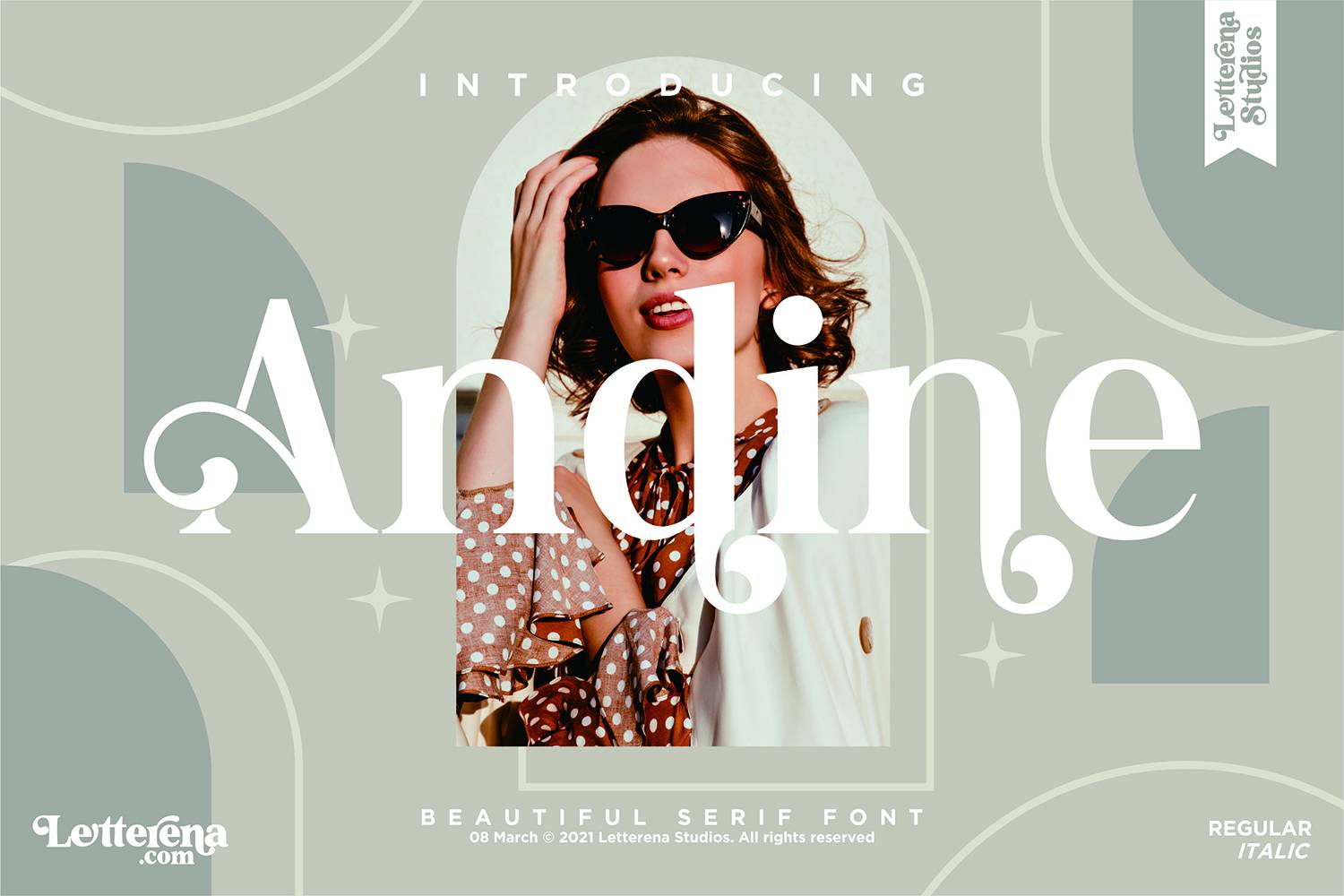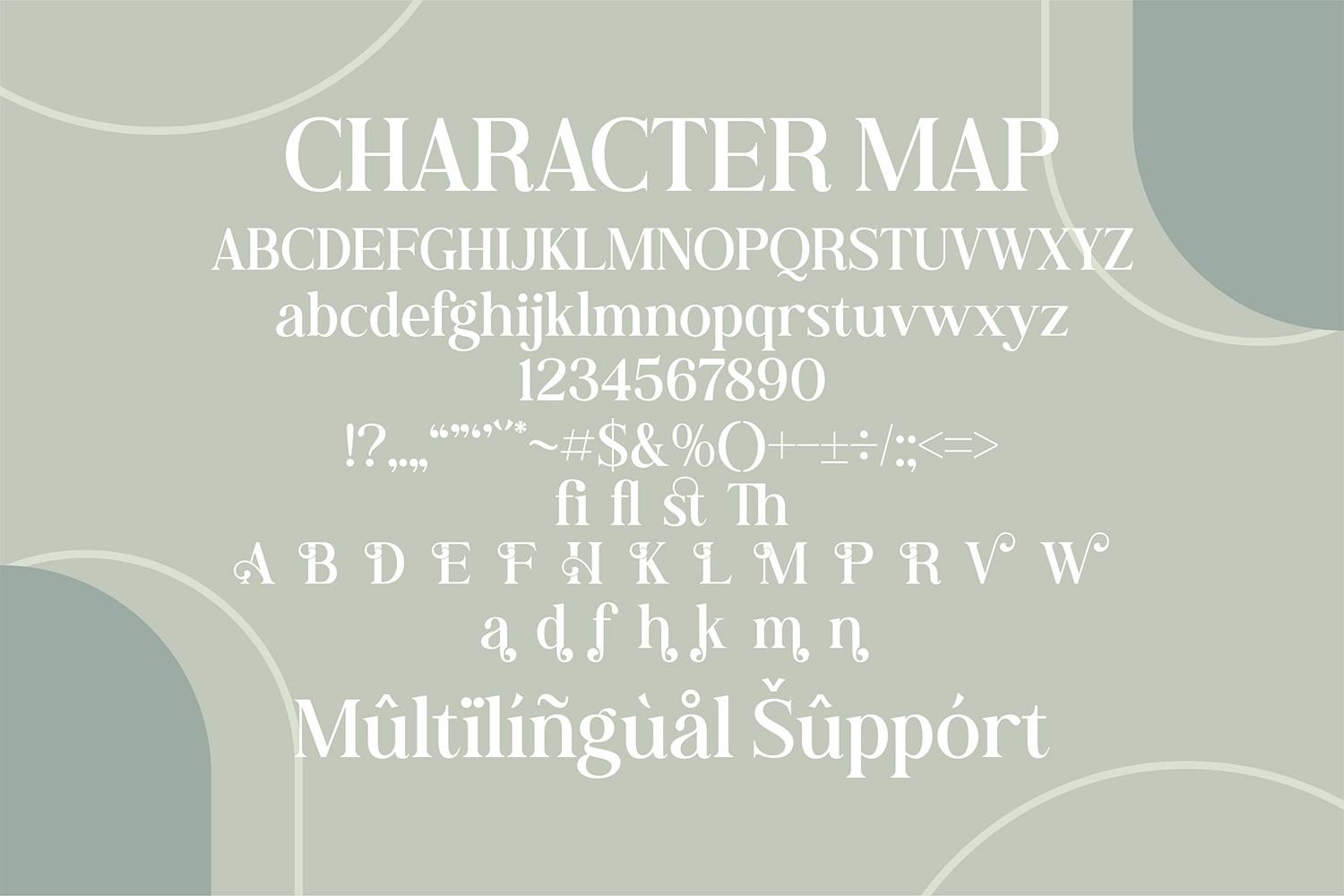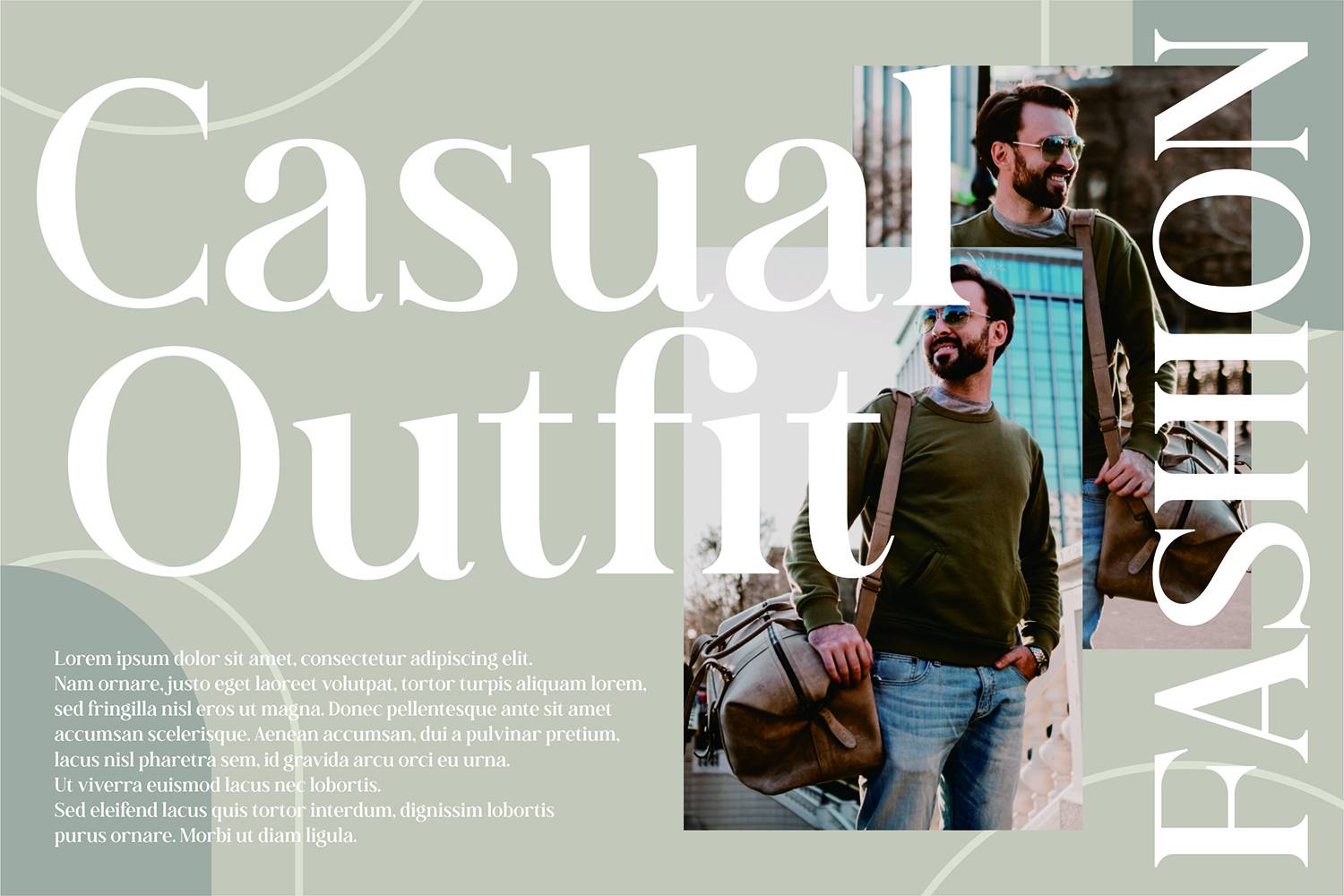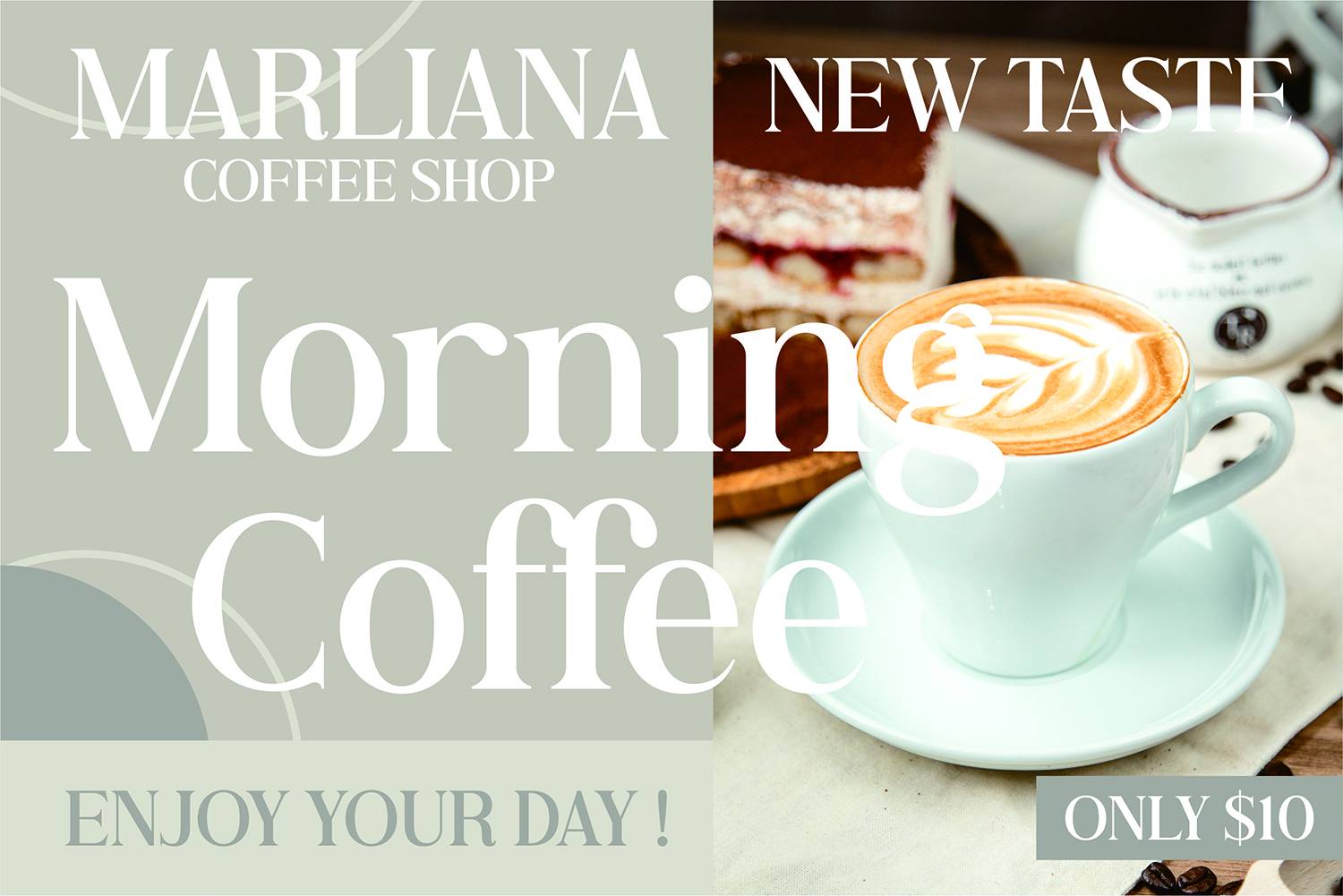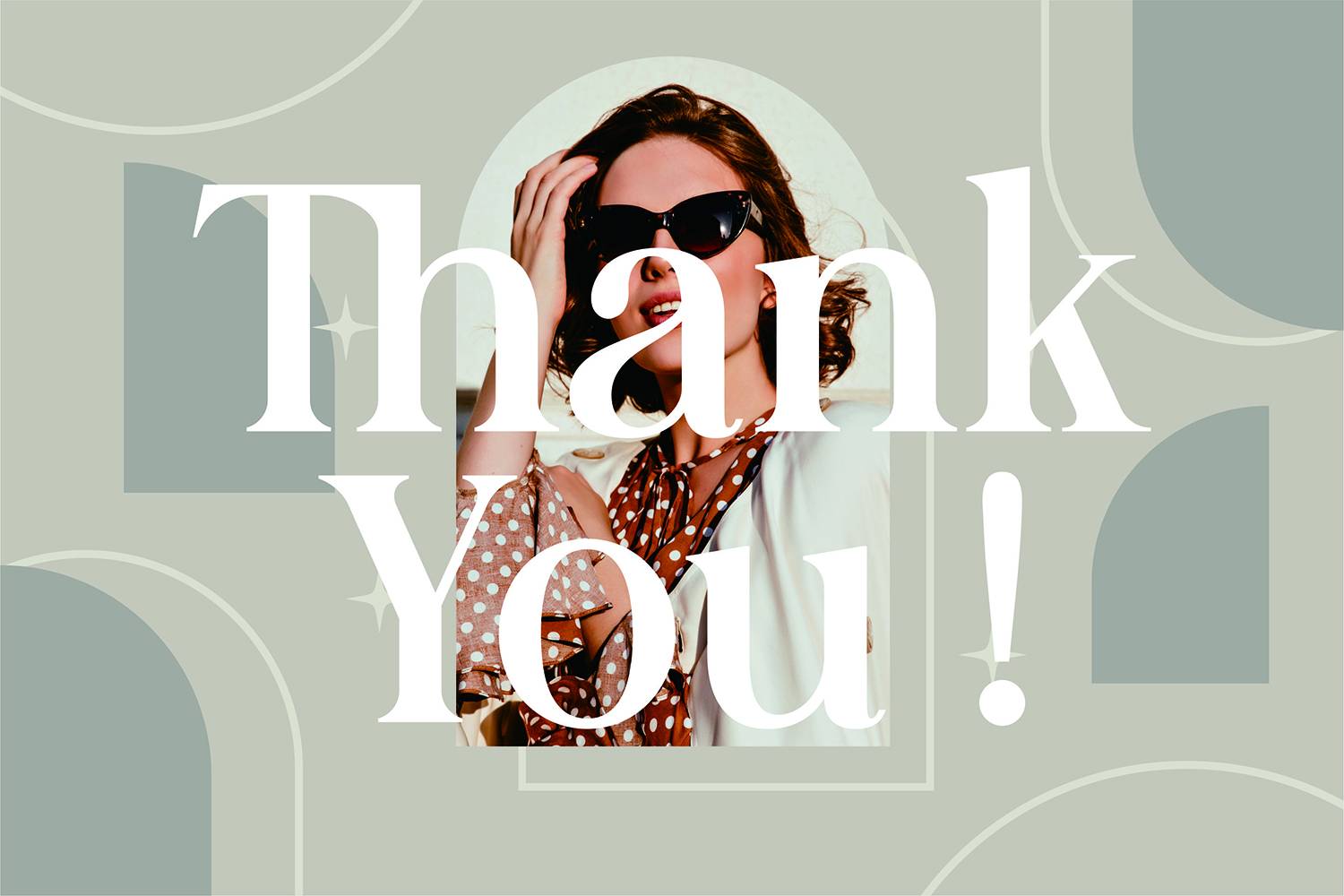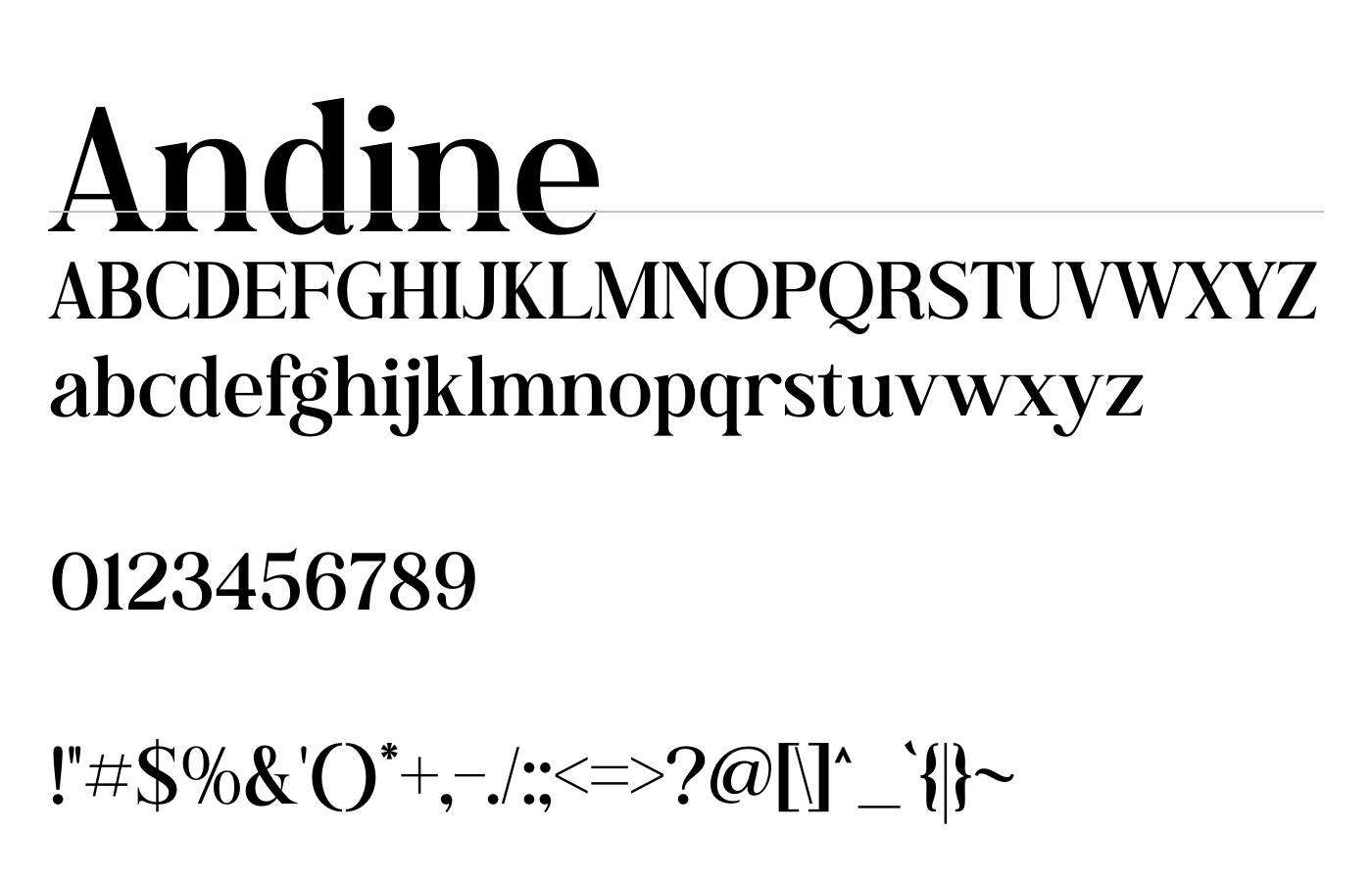
Andine is a refined serif font that combines classic elegance with modern sophistication. Featuring a medium weight and high contrast between thick and thin strokes, its sharp, bracketed serifs and distinctive letterforms give it a timeless, professional feel, perfect for luxury branding, editorial headlines, and stylish print design. This font’s balanced proportions and clear readability make it ideal for projects that require a polished yet approachable look.
Andine Font
About Andine Font